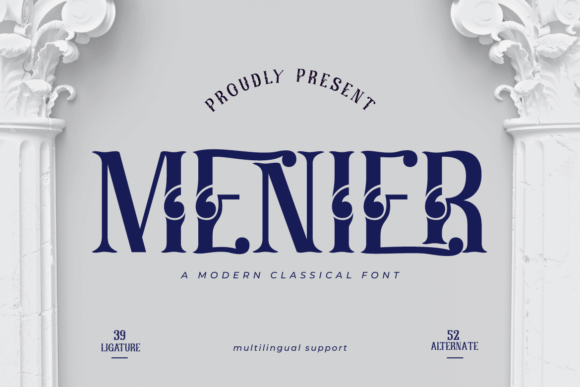
Looking for the best font for writing books? Look no further than Menier Font, the retro condensed font that combines classic style with modern design. Menier is the perfect choice for any project, whether it's print or digital.
Created by twinletter, Menier is a serif font that adds a touch of nostalgia to any design. Its sleek and condensed style is perfect for vintage and retro-themed projects, giving your work a unique and eye-catching look.
With Menier Font, you'll have access to all glyphs and swashes effortlessly thanks to its PUA encoding. This means you can easily create beautiful and complex designs without any hassle.
Whether you're a graphic designer, author, or just someone who appreciates good typography, Menier Font is the perfect choice for your next project. It's the ideal font for writing books, adding a touch of sophistication and style to any text.